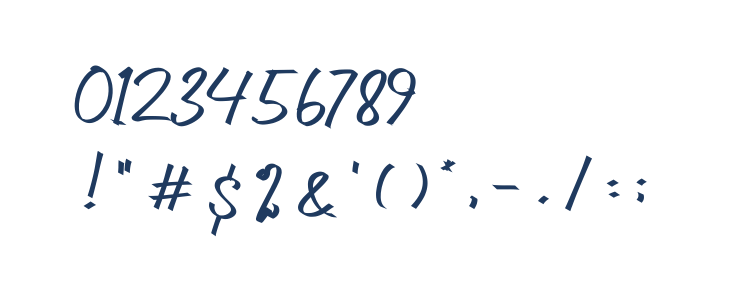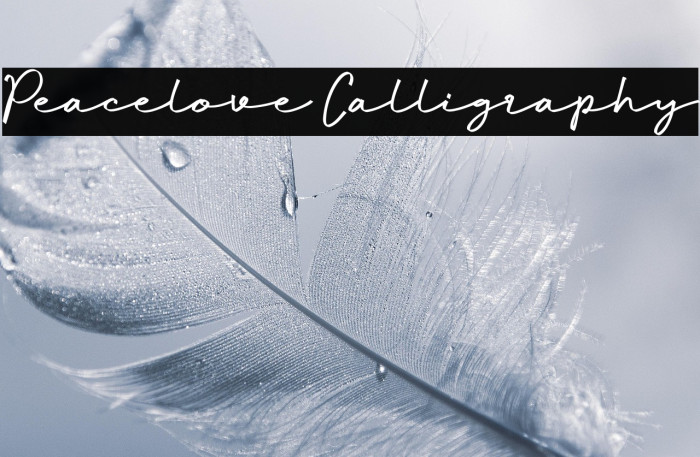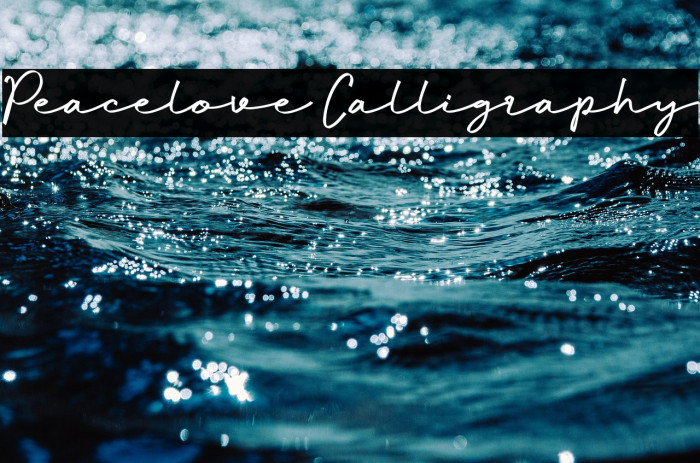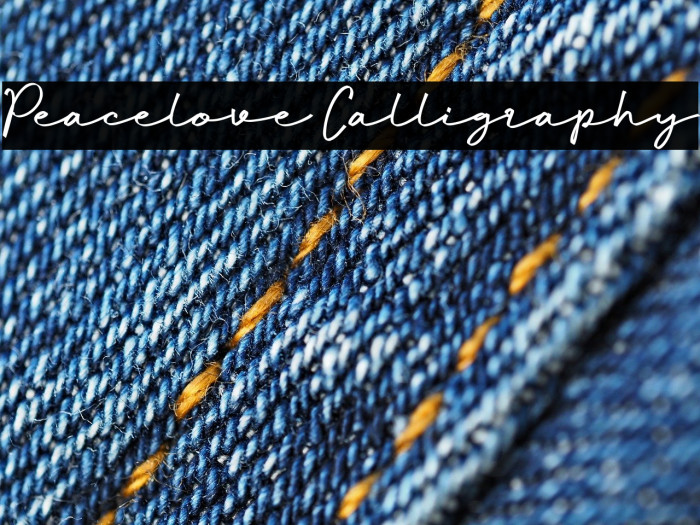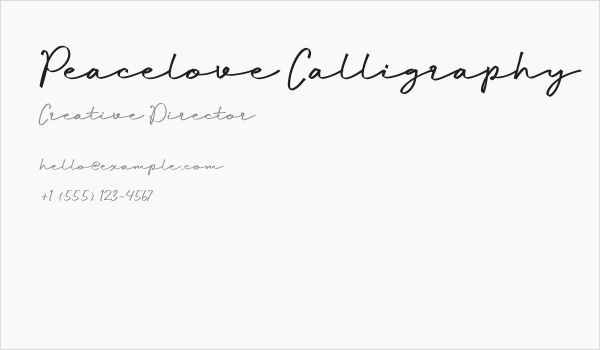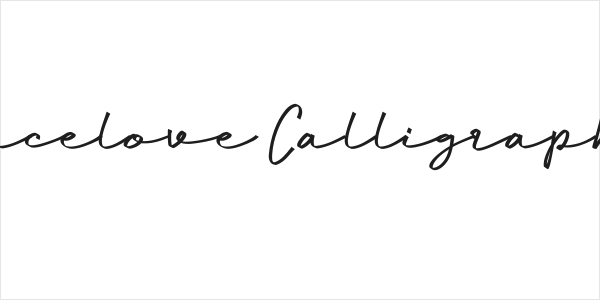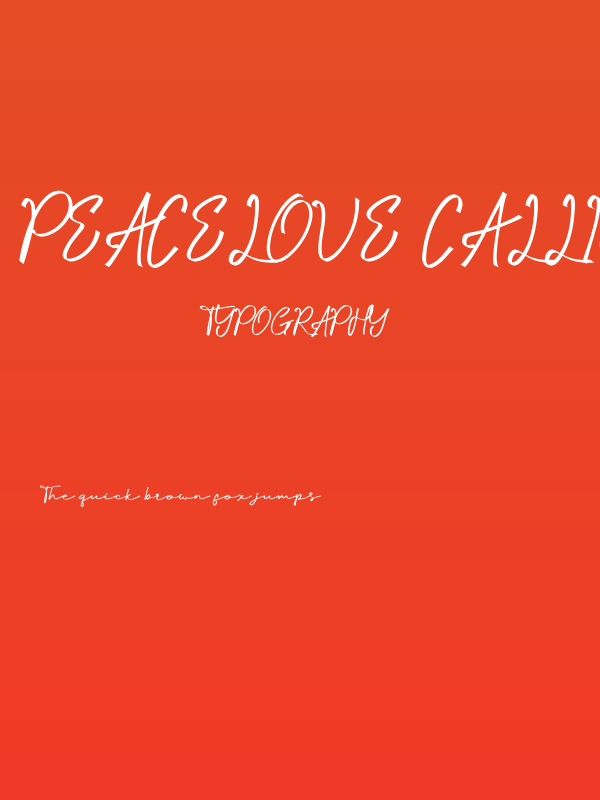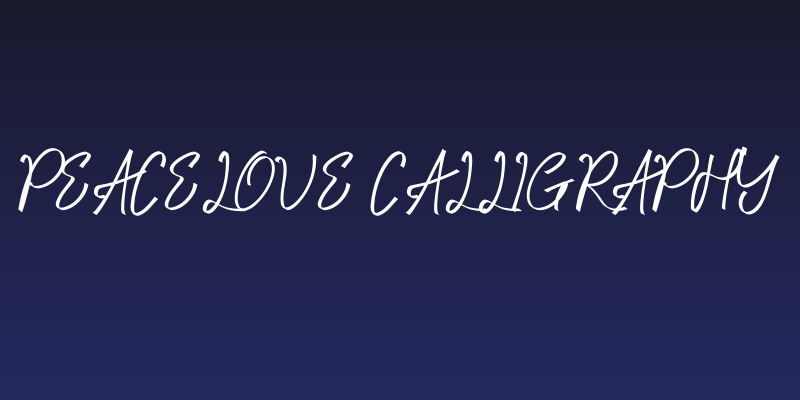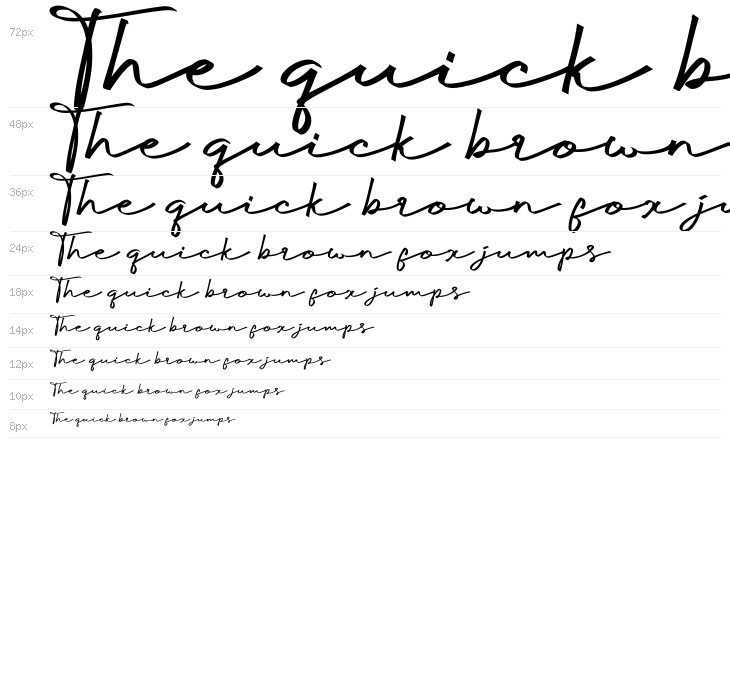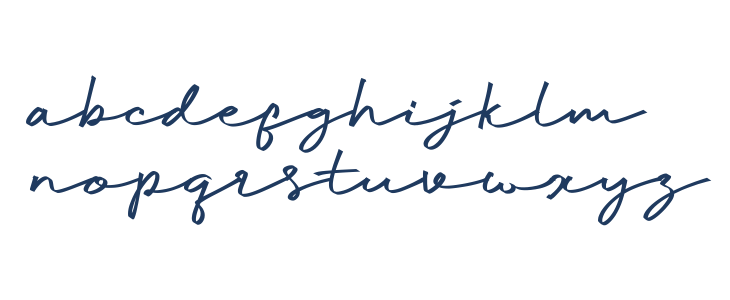
Peacelove Calligraphy Font
Peacelove Calligraphy Description
This font features a flowing, elegant calligraphic style that exudes a sense of grace and sophistication. The uppercase letters are bold and slightly slanted, with sweeping curves and flourishes that give them a dynamic appearance. The lowercase letters maintain a consistent flow, connecting smoothly in a cursive manner. Numbers are distinct and maintain the same calligraphic flair, ensuring readability while retaining artistic elements. Special characters are designed to complement the overall aesthetic, with each symbol crafted to blend seamlessly with the letters and numbers. This font is perfect for projects that require a touch of elegance and personal expression.
Use CaseLogos, Headlines, Artistic projects
Proposed ProjectsIdeal for wedding invitations, greeting cards, personal branding, and artistic projects.